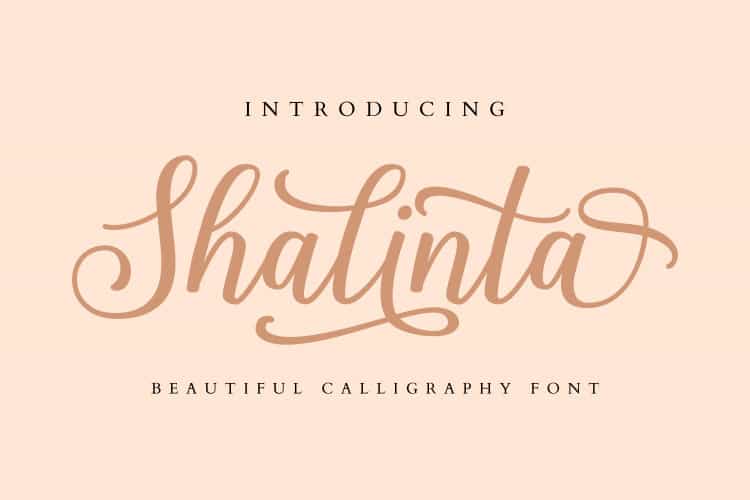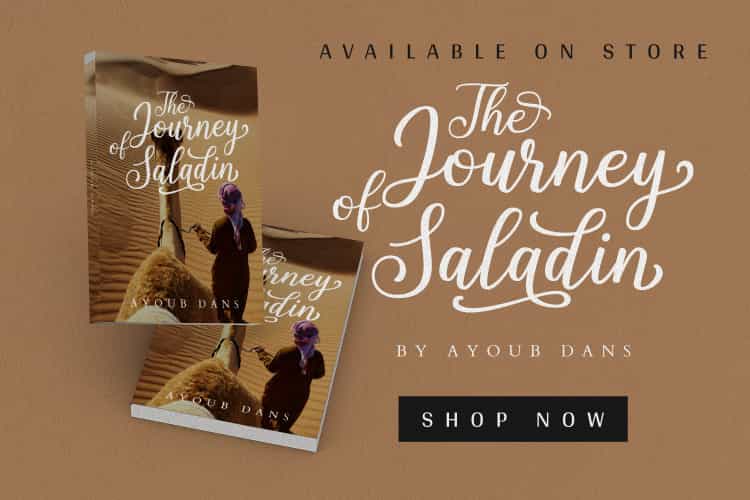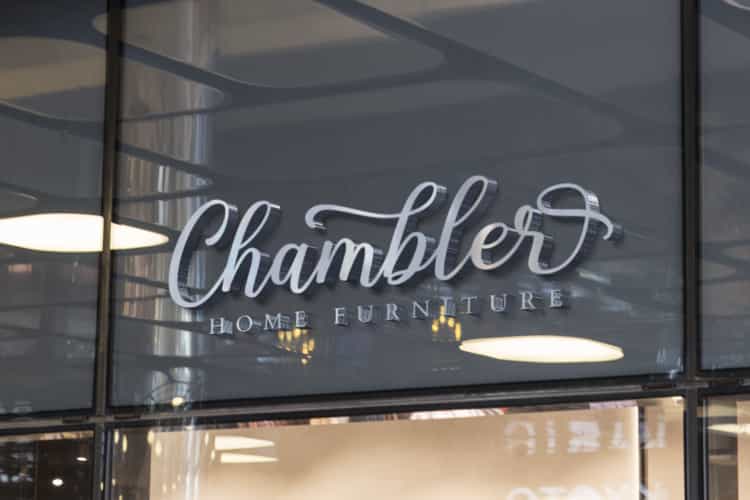
Shalinta Calligraphy Font– You are working on a project that requires new calligraphic typefaces, then these font suits are perfect for you. Shalinta is a beautiful calligraphy font with some alternate characters making the design look lovelier. It has standard characters, multilingual support, ligatures, and alternates which are included with 359 glyphs and can be a perfect design to be more beautiful than before.